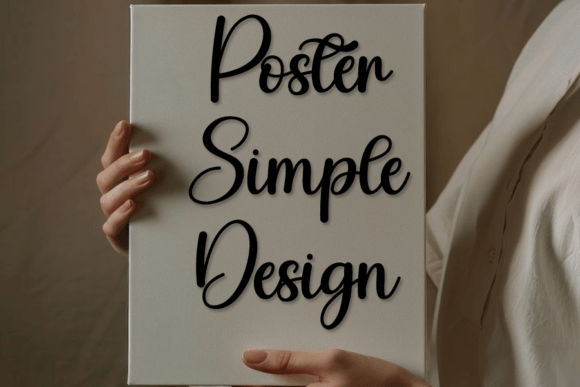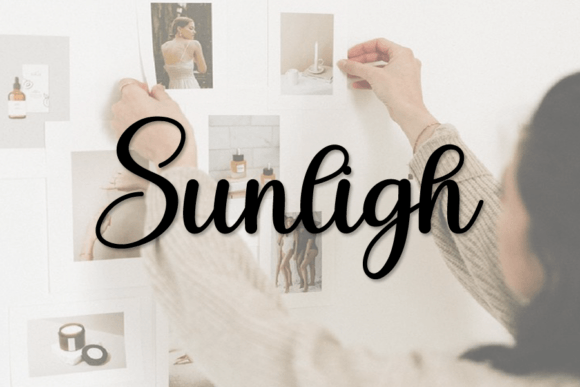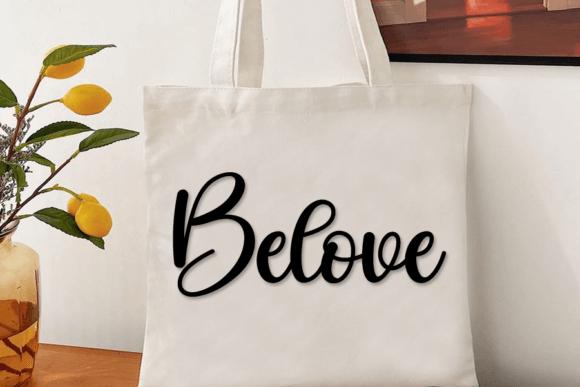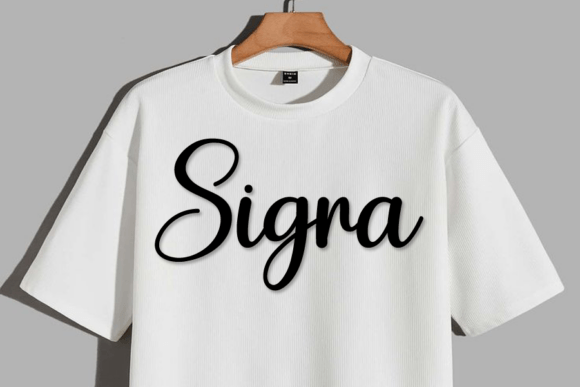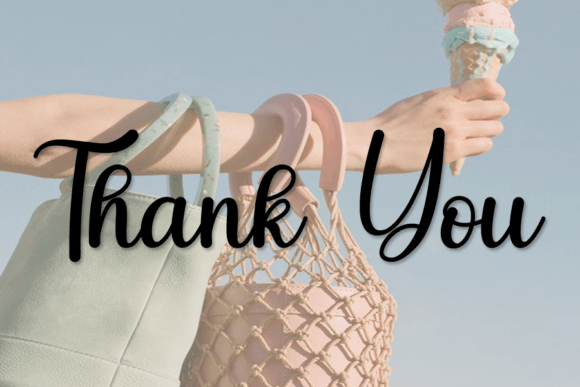
Bernadya Danadyaksa Font: A Timeless Classic for Creative Design Projects
Are you a designer or crafter looking for a unique and versatile font to elevate your creative projects? Look no further than the Bernadya Danadyaksa font, a classic and simple handwritten script that is perfect for a wide range of applications. In this article, we’ll explore the features and benefits of this beautiful font, and show you how to make the most of it in your designs.
What is Bernadya Danadyaksa Font?
Bernadya Danadyaksa is a carefully crafted handwritten script font, created in a random and free style to give it a distinctive and personal touch. With its classic and simple design, this font is suitable for a wide range of creative projects, from logotypes and headlines to corporate identities, brand identities, and more.
Key Features of Bernadya Danadyaksa Font
- Classic and Simple Design: Bernadya Danadyaksa font features a timeless and elegant design that works well for both modern and traditional projects.
- Handwritten Script: The font’s handwritten script style gives it a personal and unique touch, making it perfect for creative projects that require a human touch.
- Random and Free Style: The font’s random and free style ensures that it remains flexible and adaptable, making it suitable for a wide range of applications.
- Highly Versatile: Bernadya Danadyaksa font is suitable for use in logotype, headline font, corporate identity, brand identity, apparel industry, poster, music, movie, game, magazine, book, comic, cartoon, YouTube, Instagram, website, or any other creative design project.
Benefits of Using Bernadya Danadyaksa Font
So why choose Bernadya Danadyaksa font for your creative projects? Here are just a few benefits of using this amazing font:
- Elegance and Sophistication: Bernadya Danadyaksa font adds a touch of elegance and sophistication to any design project, making it perfect for high-end brands and luxury products.
- Flexibility and Adaptability: The font’s random and free style ensures that it remains flexible and adaptable, making it suitable for a wide range of applications and design styles.
- Unique and Personal Touch: The font’s handwritten script style gives it a unique and personal touch, making it perfect for creative projects that require a human touch.
- Easy to Read and Understand: Despite its elegant and sophisticated design, Bernadya Danadyaksa font is easy to read and understand, making it perfect for use in body text and other applications where readability is key.
How to Use Bernadya Danadyaksa Font in Your Designs
So how can you make the most of Bernadya Danadyaksa font in your designs? Here are a few tips and ideas to get you started:
- Use it as a Logotype or Headline Font: Bernadya Danadyaksa font is perfect for use as a logotype or headline font, thanks to its bold and eye-catching design.
- Pair it with Other Fonts: Experiment with pairing Bernadya Danadyaksa font with other fonts to create a unique and visually appealing design.
- Use it in Print and Digital Applications: Bernadya Danadyaksa font is suitable for use in both print and digital applications, making it perfect for use in everything from business cards and brochures to websites and social media graphics.
- Experiment with Different Colors and Textures: Don’t be afraid to experiment with different colors and textures to add depth and interest to your designs.
In conclusion, Bernadya Danadyaksa font is a timeless classic that is perfect for creative designers and crafters looking for a unique and versatile font to elevate their projects. With its classic and simple design, handwritten script style, and random and free style, this font is suitable for a wide range of applications and design styles. Whether you’re looking to create a logotype, headline font, corporate identity, or brand identity, Bernadya Danadyaksa font is the perfect choice.